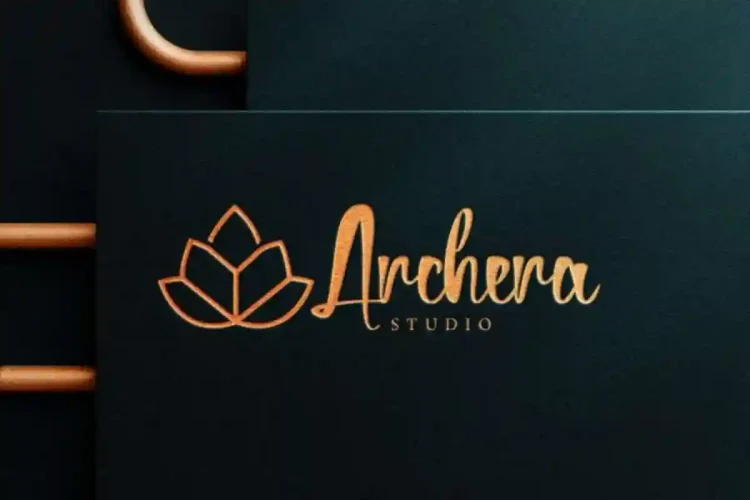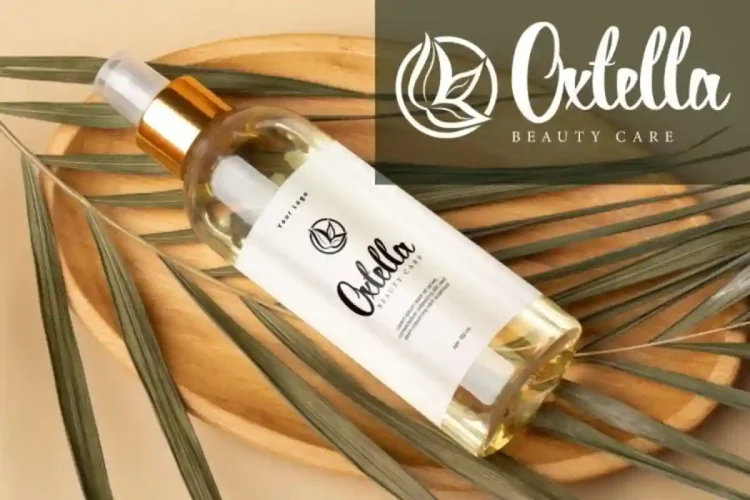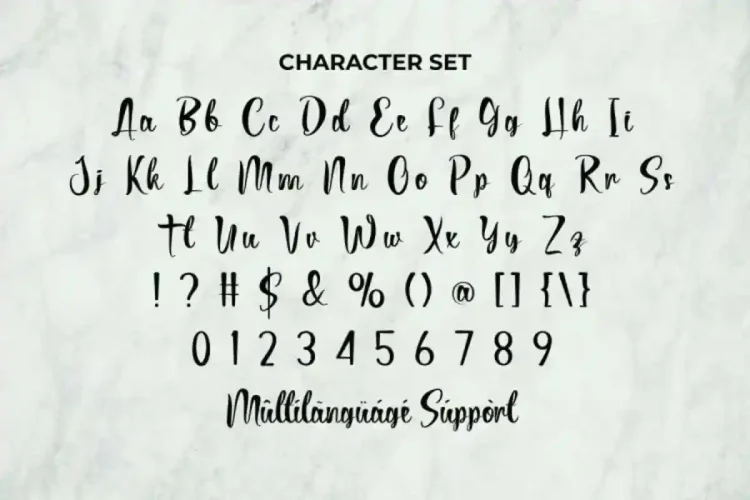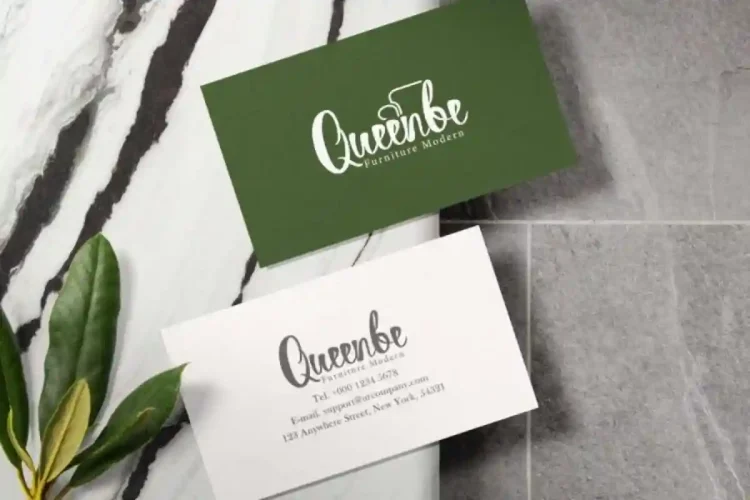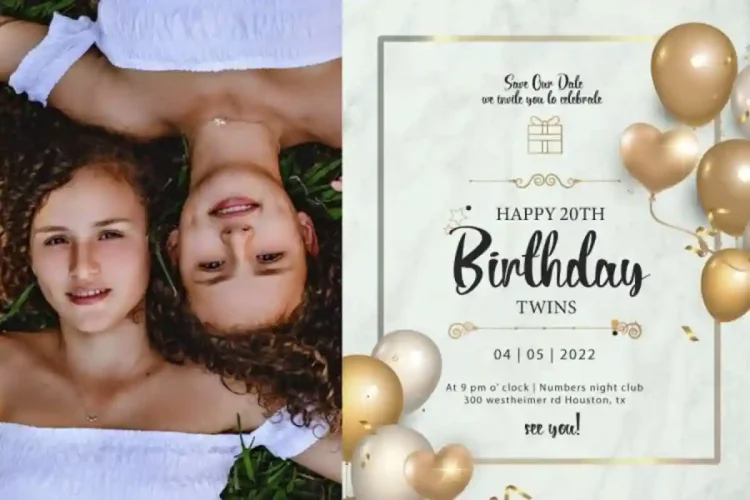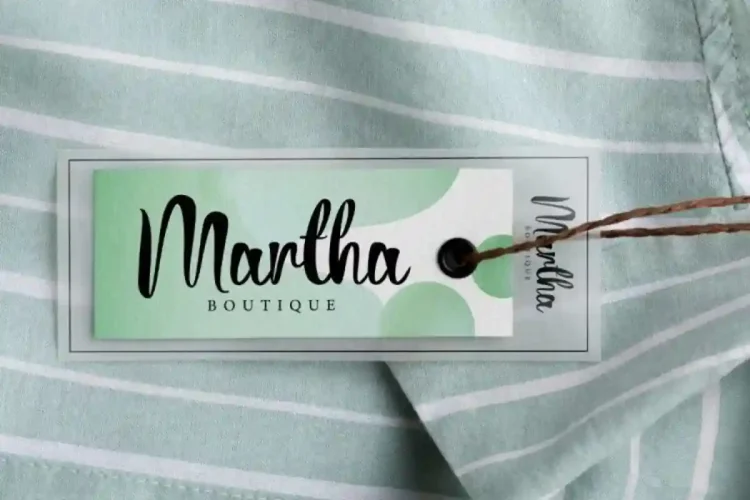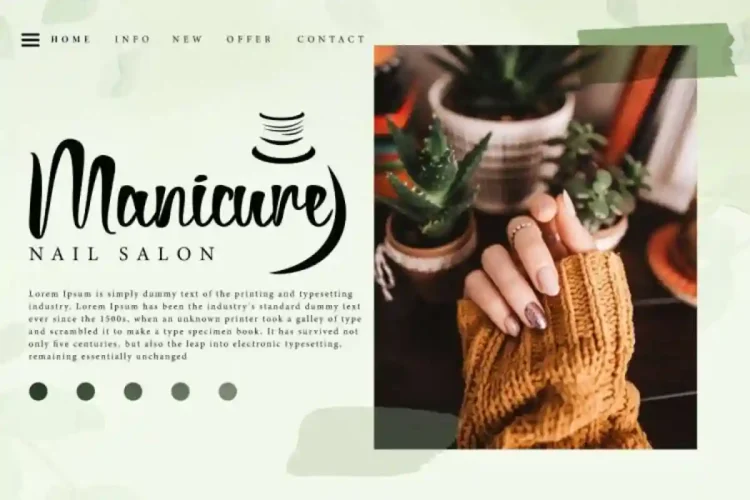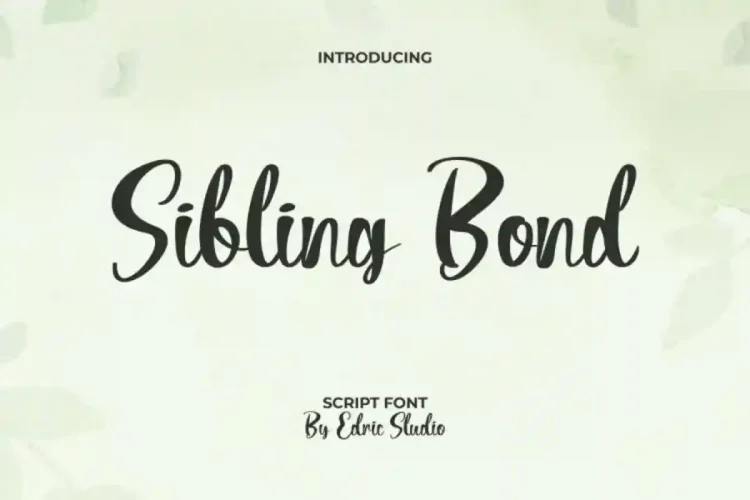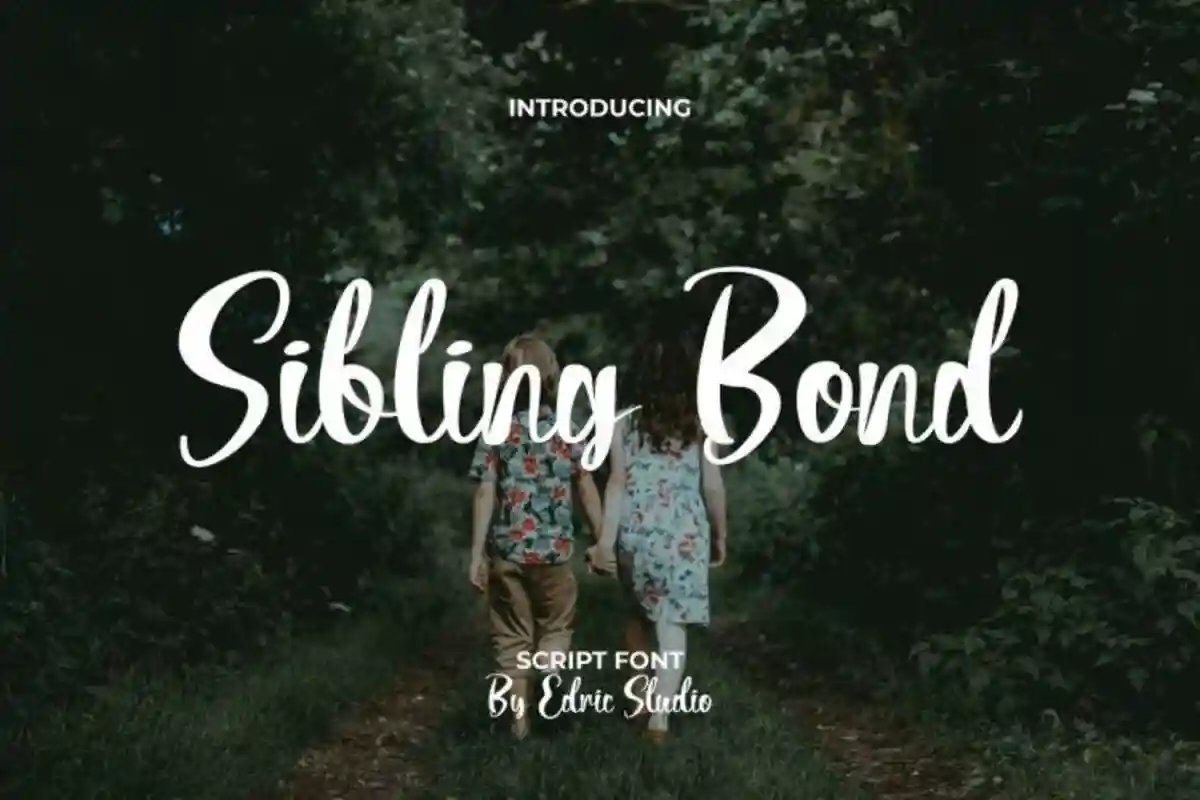
Sibling Bond Script Font is a casual calligraphic script with a different thickness in each letter, created by EdricStudio.
Sibling Bond Script Font comes with a full set of Uppercase and Lowercase Basic Characters, Number, a large range of Punctuation and Symbol. It has a stunning characters set, perfectly managed with well spaced and kerning. Sibling Bond Script Font will be great for any projects (with extended license) including : blog header, brand logo, business card, company sign, invitation, label, packaging design, etc.